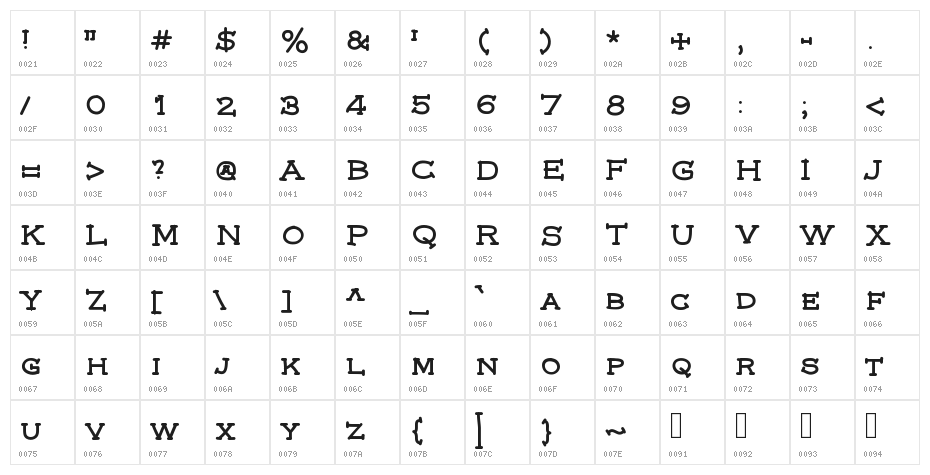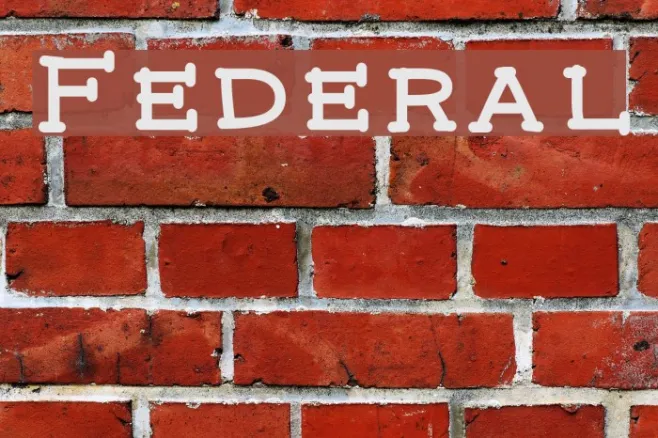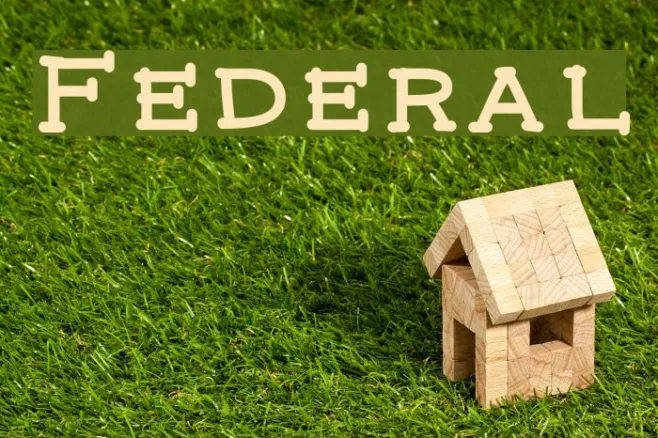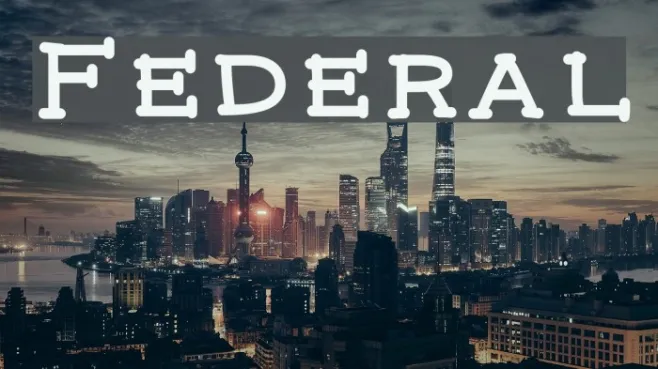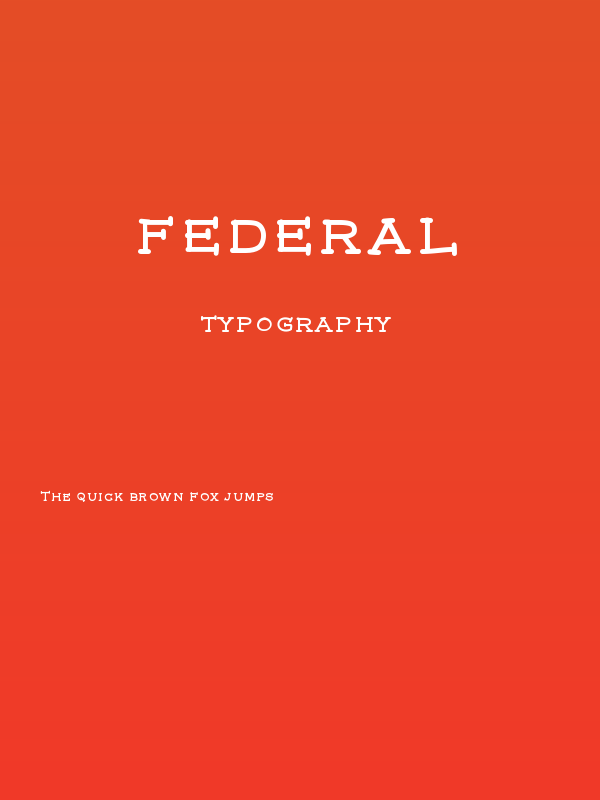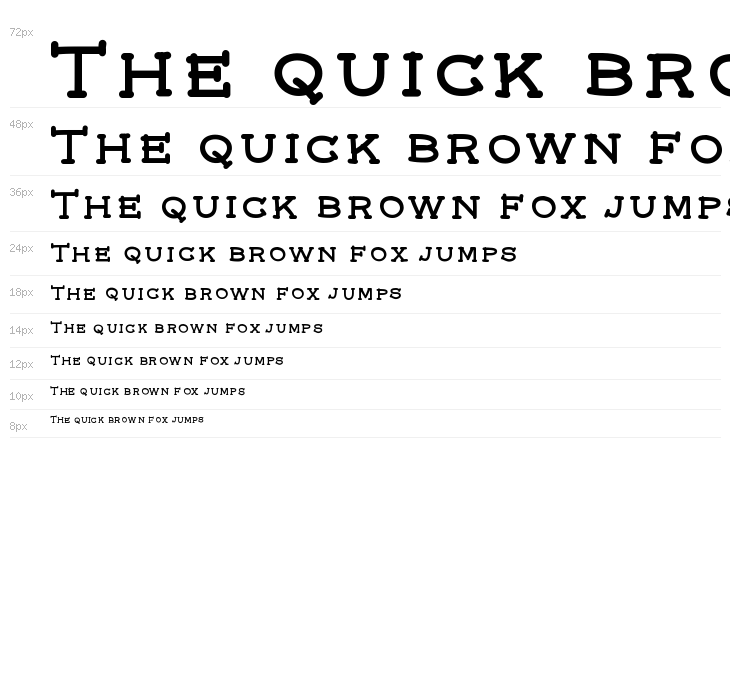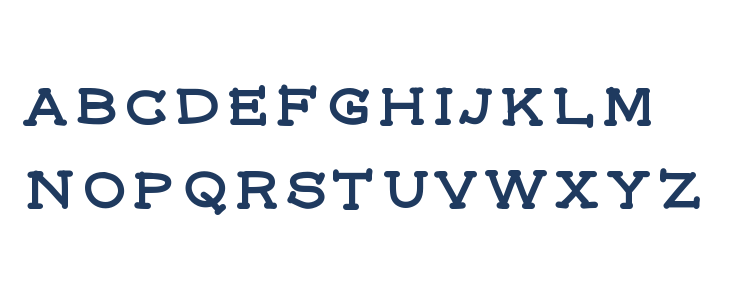
Federal Font
Federal Description
This font features a bold and robust design with slab serif characteristics, offering a strong and authoritative presence. The letters are well-defined with thick strokes and rounded edges, providing a sense of stability and reliability. The uppercase and lowercase letters maintain a consistent style, while the numerals and special characters complement the overall aesthetic. The font's design is both classic and modern, making it versatile for various applications. Its boldness ensures readability, while the unique serifs add a touch of elegance and sophistication.
FEDERAL UPPERCASE
FEDERAL LOWERCASE
FEDERAL OTHER CHARS